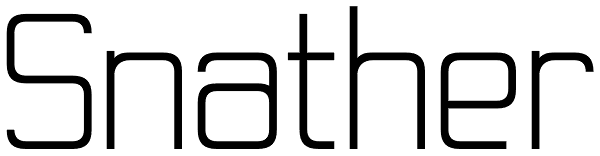
Snather
Snather is a simple, slightly square sans-serif with modern (if not futuristic) clean lines, giving great clarity and legibility. There are four weights to suit all situations - from the quite fine Regular, to the more substantial HeavyBold which is...